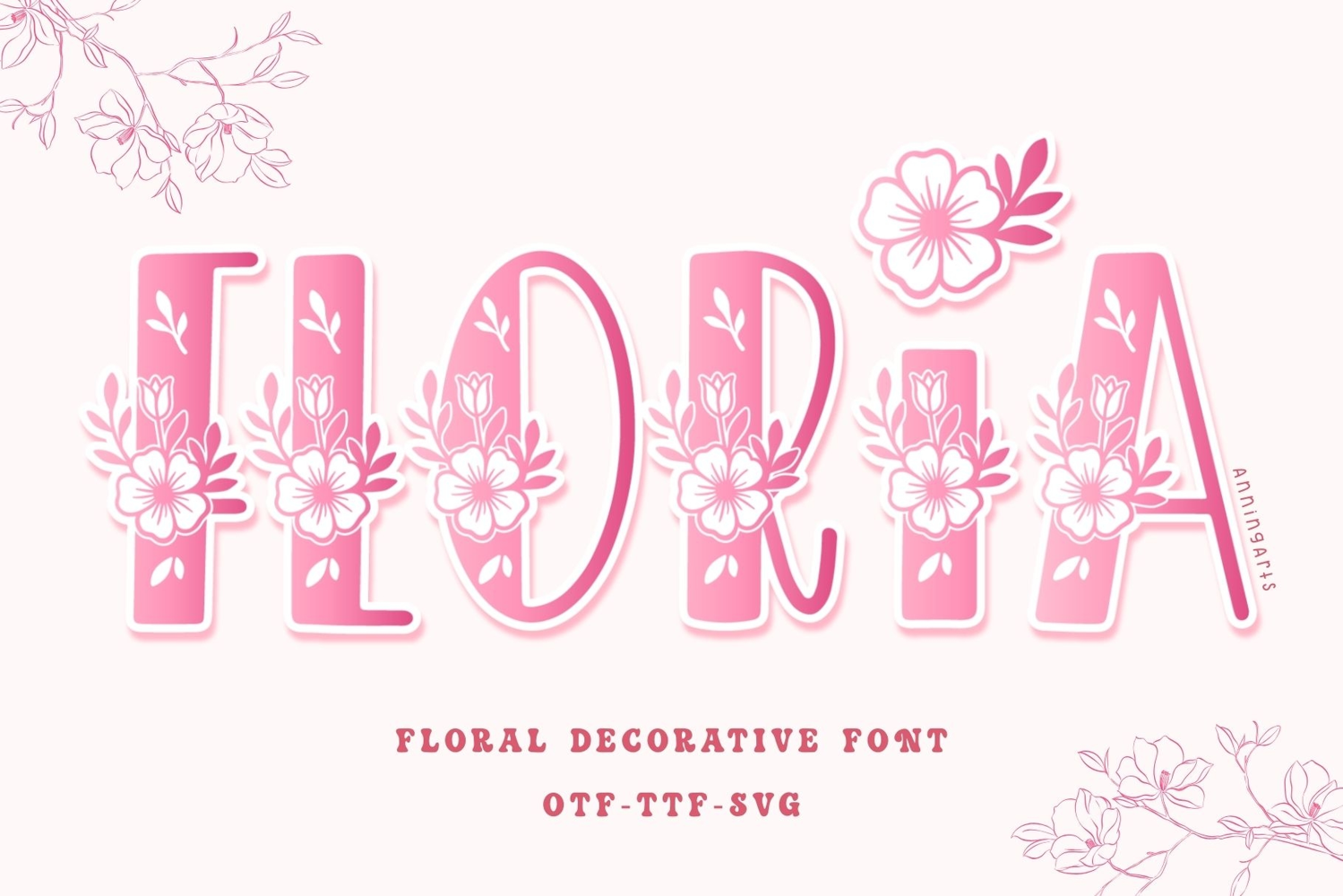
Floria - Floral Decorative Font
Floria
Floria is a floral decorative font featuring detailed flower elements in each letter. Perfect for weddings, branding, t-shirts, tote bags, and invitations, this font adds elegance and charm to any design. Fully compatible with Cricut, Silhouette, and other cutting machines, it’s a must-have for crafters and designers.